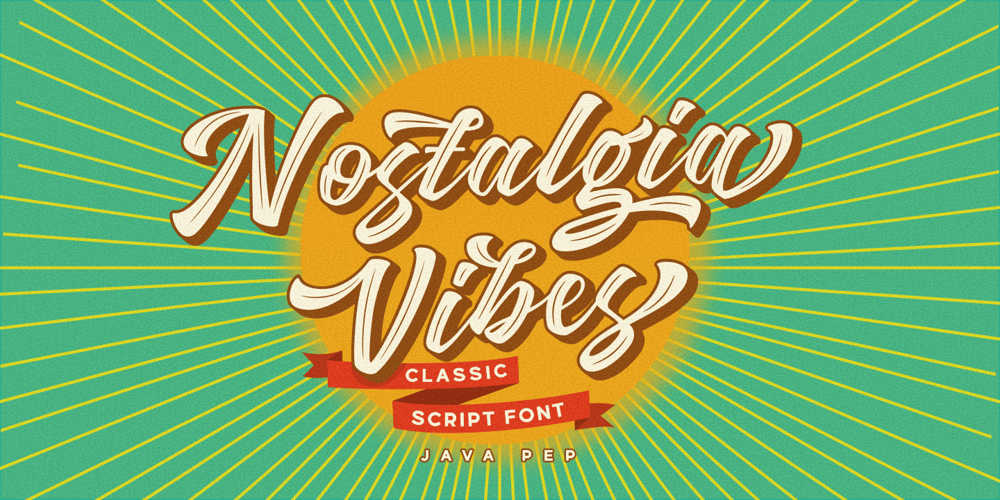
Nostalgia Vibes
Nostalgia Vibes font
Nostalgia Vibes Font Family was designed by Java Pep and published by Java Pep. Nostalgia Vibes contains 3 styles and family package options. Proudly present a classic font style called Nostalgia Vibes, to add to that impression, the Nostalgia Vibes font comes with engraved strokes in every letter and shadow feature. Nostalgia Vibes font also has a lot of alternate glyphs and supports multilingual languages, This font is perfect for logos, advertising, publishing, headlines, posters, etc.What you’ll get Nostalgia Vibes Shadow Free Nostalgia Vibes Solid non-engraved Multilingual Support Opentype features with PUA-encoded